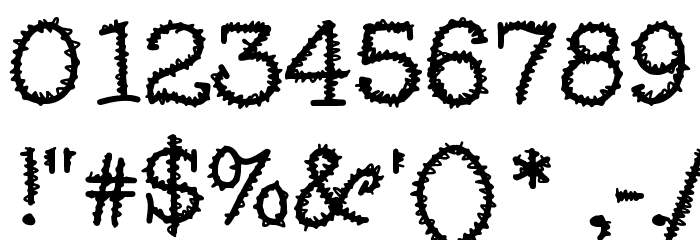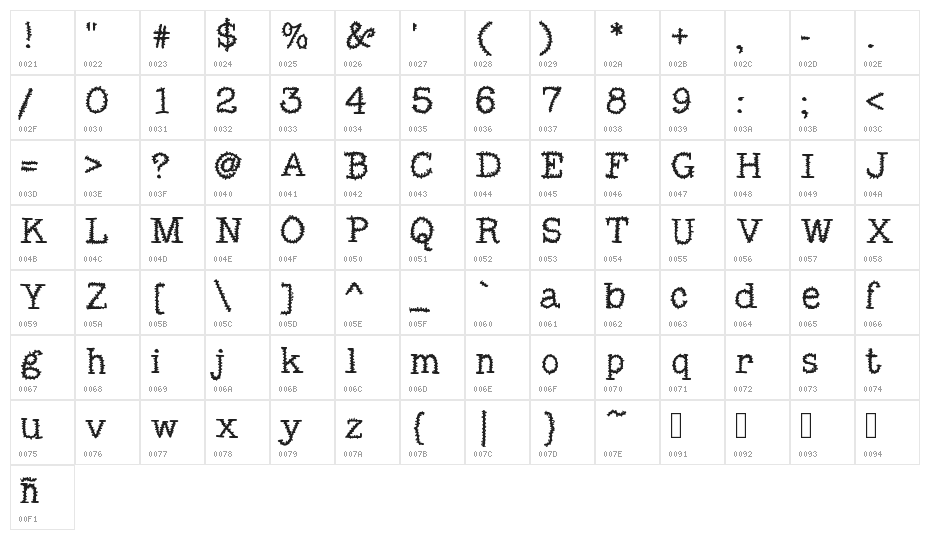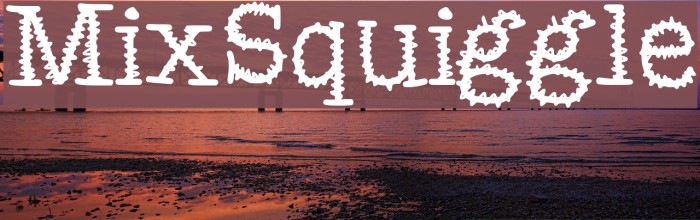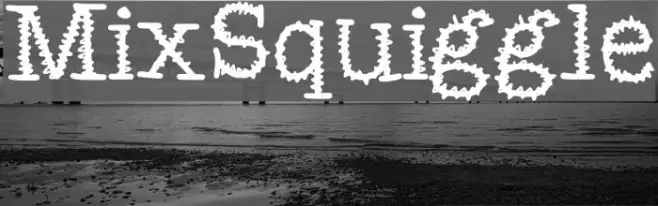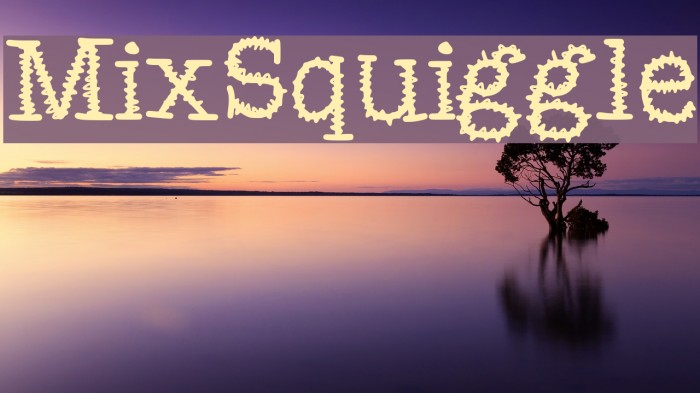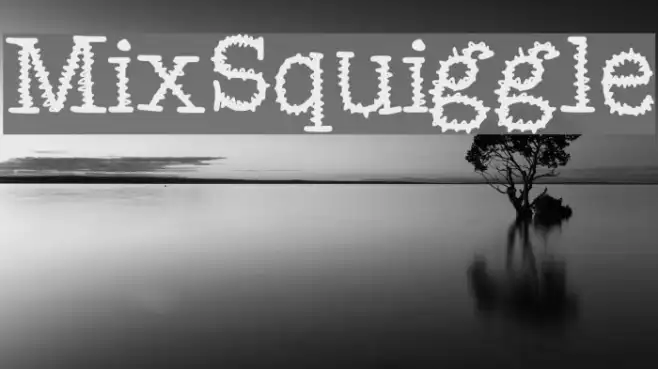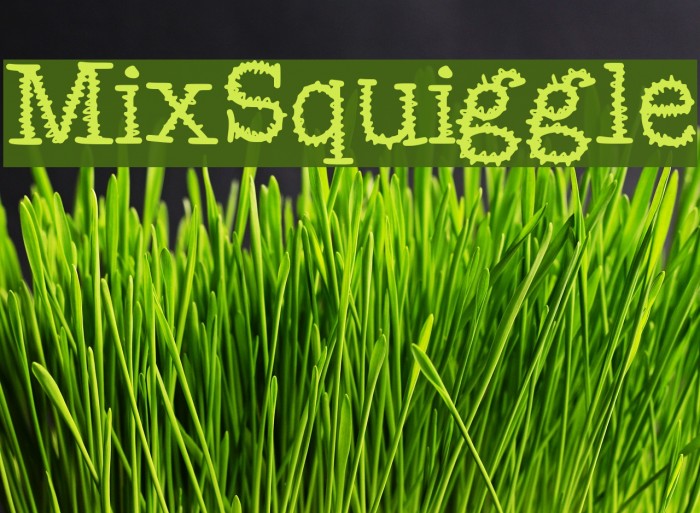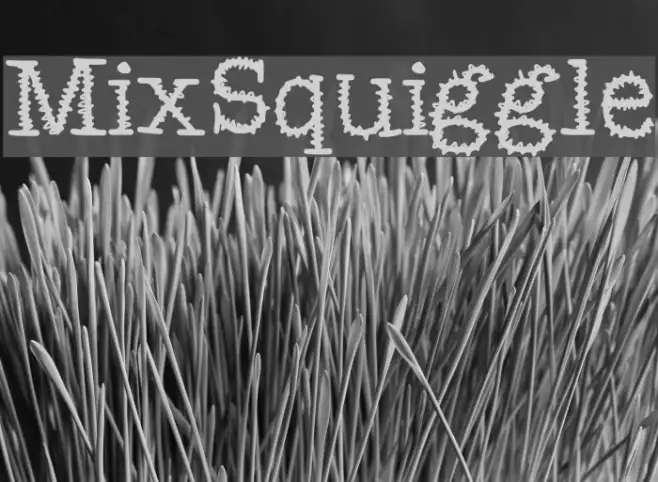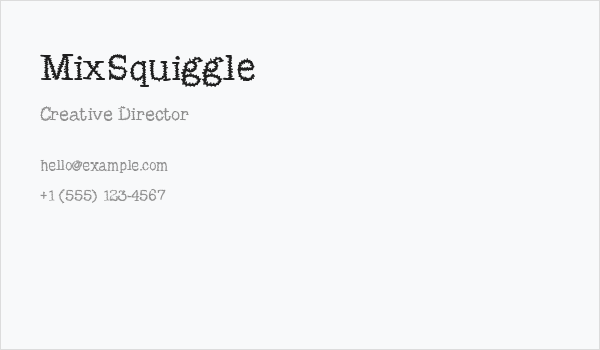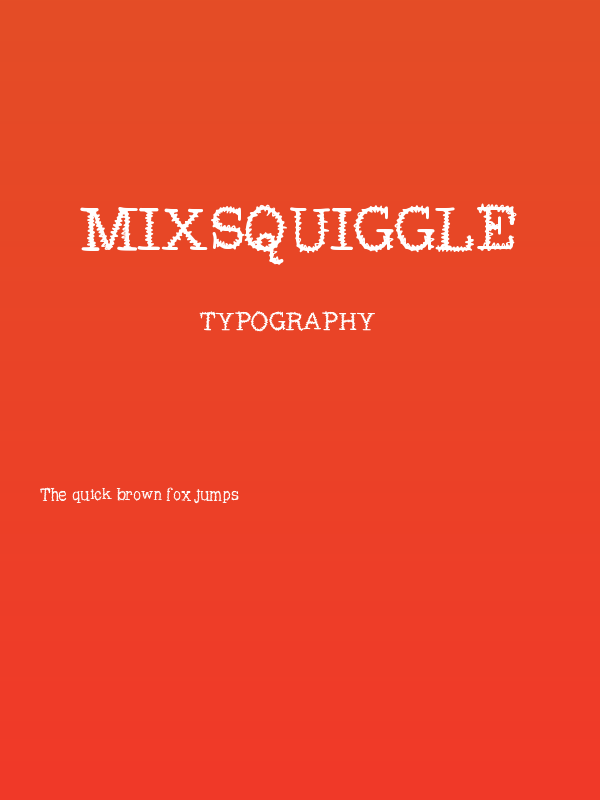
MixSquiggle Font
MixSquiggle Description
This font features a unique and playful design with a squiggly, irregular outline that gives it a whimsical and energetic appearance. Each character is crafted with a jagged, hand-drawn style that adds a sense of movement and creativity. The uppercase and lowercase letters maintain a consistent height, while the numbers and special characters follow the same quirky aesthetic. This font stands out with its bold and decorative nature, making it ideal for projects that require a fun and eye-catching typeface.